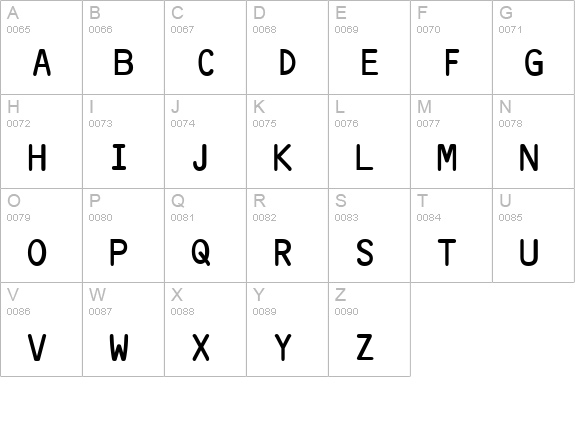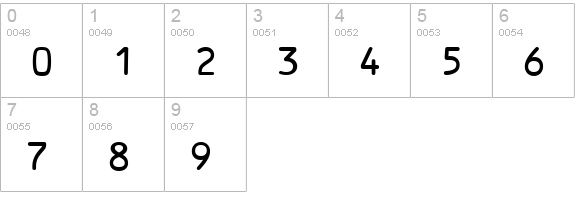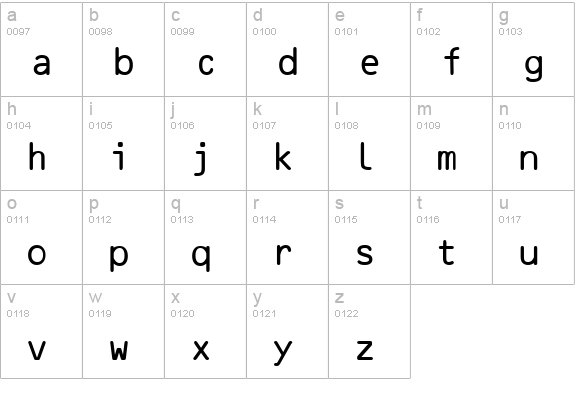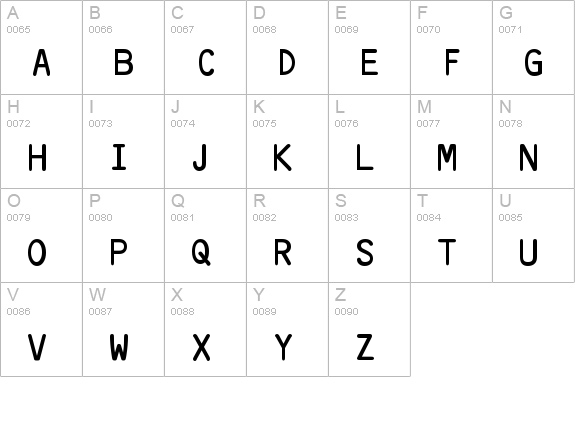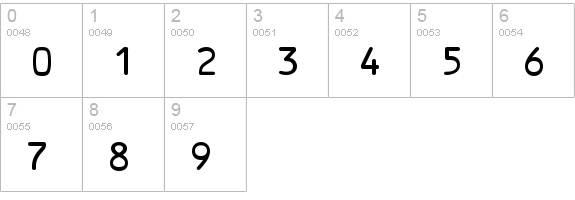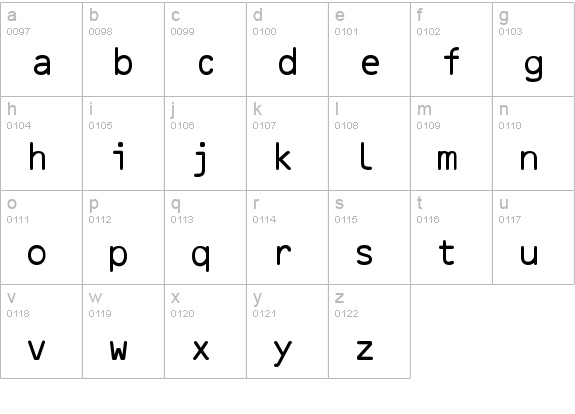
OCR-B-Regular is the standard, neutral variant in the OCR typeface family \xE2\x80\x94 well suited to general body text, paragraphs, and standard typographic work.
OCR-B-Regular is a modern and sleek font designed for optimal readability. Its clean lines and precise spacing make it perfect for any project requiring a professional and polished look. The font features a timeless design that is both classic and contemporary, making it versatile for a wide range of applications. Best of all, OCR-B-Regular is available for free download at FontsMarket.com, allowing you to easily access this high-quality typeface for all your design needs. Whether you're creating documents, signage, or digital content, OCR-B-Regular is a reliable choice that will elevate your designs with its clarity and sophistication.